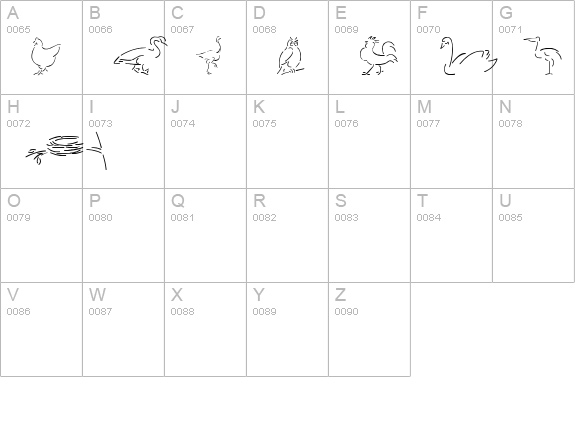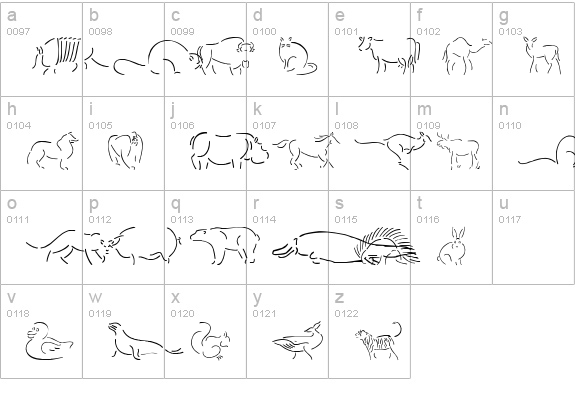
Founa BC Font Details
Founa BC is a stunning and versatile font that exudes elegance and sophistication. Its sleek and modern design makes it perfect for a wide range of design projects, from branding to editorial design. With its clean lines and balanced proportions, Founa BC is sure to make a statement and capture the attention of viewers. What sets Founa BC apart is not only its striking aesthetic appeal but also the fact that it is available for free download at FontsMarket.com. This means that you can easily access this high-quality font without any cost, making it a valuable addition to your font collection. Don't miss out on the opportunity to elevate your designs with Founa BC - download it for free today!